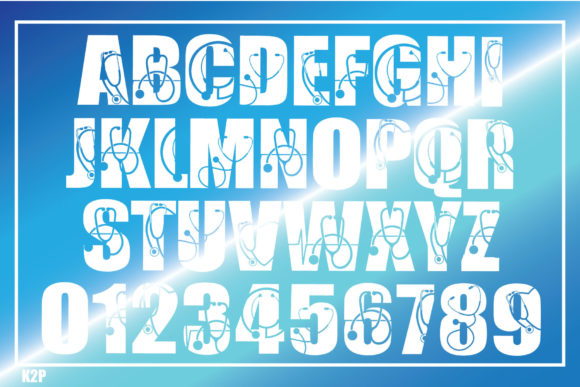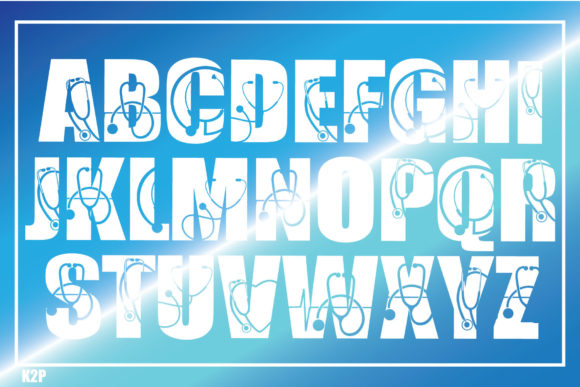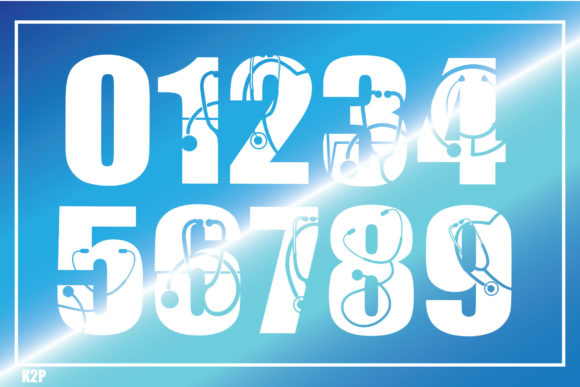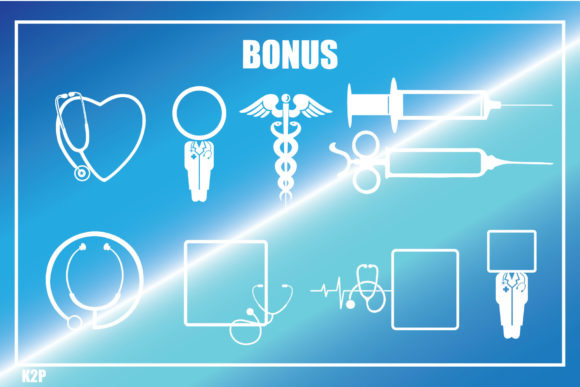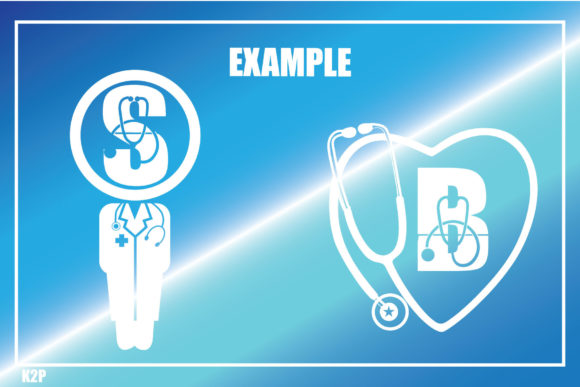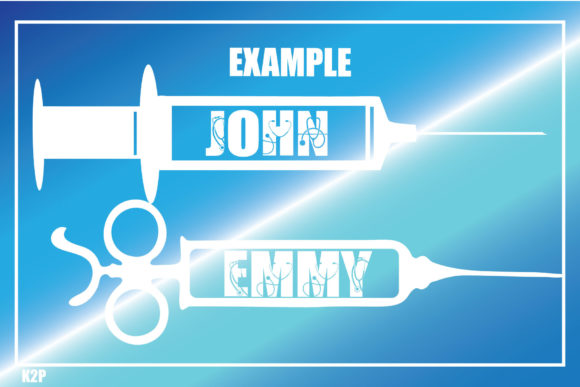
Introducing the Doctor and Nurse Font: A Unique Decorative Font for Healthcare Designs
Are you a designer or crafter looking for a font that can add a touch of professionalism and care to your designs? Look no further than the Doctor and Nurse Font. This thick lettered and incredibly unique decorative font is perfect for various design ideas, particularly those related to doctors, nurses, and the healthcare staff in general.
What Makes the Doctor and Nurse Font Stand Out?
The Doctor and Nurse Font is not your average font. Its thick letters and unique design make it stand out from the crowd, adding a touch of elegance and sophistication to any design. Whether you’re creating a logo, a poster, or a social media graphic, this font is sure to grab attention and convey a sense of professionalism.
Perfect for Healthcare Designs
The Doctor and Nurse Font is specifically designed with healthcare professionals in mind. Its unique design and thick letters make it perfect for creating designs that require a touch of care and compassion. Whether you’re designing a logo for a hospital, a medical website, or a healthcare brochure, this font is sure to fit the bill.
One of the best things about the Doctor and Nurse Font is that it’s PUA encoded. This means that you can access all of the glyphs and swashes with ease, giving you complete creative control over your designs. With PUA encoding, you can easily access alternative characters, ligatures, and other special features that will take your designs to the next level.
Design Ideas with the Doctor and Nurse Font
The Doctor and Nurse Font is incredibly versatile and can be used for a wide range of design ideas. Here are a few examples of how you can use this font to create stunning designs:
- Logos: Create a professional logo for a hospital, medical website, or healthcare organization.
- Posters: Design eye-catching posters for healthcare events, conferences, or awareness campaigns.
- Social Media Graphics: Create engaging social media graphics for healthcare professionals or organizations.
- Brochures: Design informative brochures for healthcare services, hospitals, or medical practices.
- Business Cards: Create professional business cards for healthcare professionals.
Why Choose the Doctor and Nurse Font?
There are many fonts available online, but the Doctor and Nurse Font stands out from the rest. Here are a few reasons why you should choose this font for your designs:
- Unique Design: The Doctor and Nurse Font has a unique design that’s unlike any other font.
- PUA Encoded: The font is PUA encoded, making it easy to access all glyphs and swashes.
- High-Quality: The font is high-quality and can be used for professional designs.
- Versatile: The font can be used for a wide range of design ideas, from logos to posters.
In conclusion, the Doctor and Nurse Font is a unique and versatile decorative font that’s perfect for healthcare designs. Its thick letters and PUA encoding make it easy to use and customize, while its high-quality design ensures that your designs will look professional and polished. Whether you’re a designer or crafter, this font is sure to become a valuable addition to your font collection.